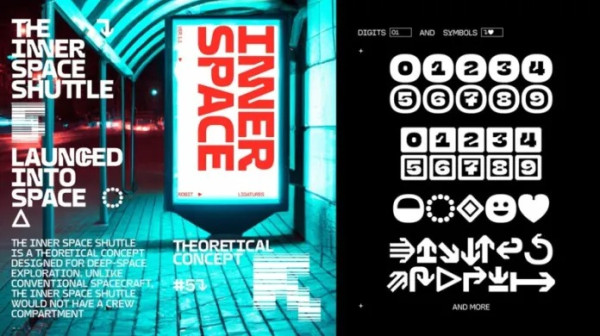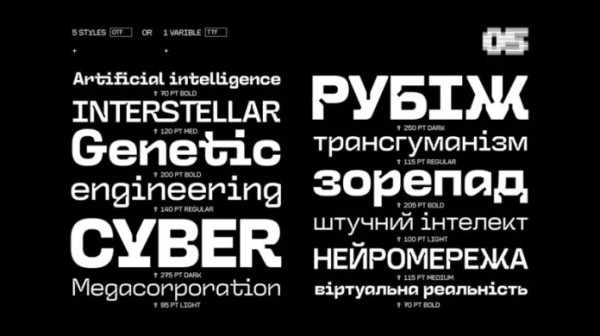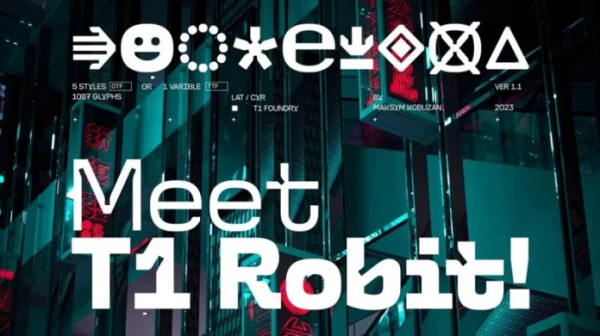
T1 Robit Font
T1 Robit Font is a modern sans display font created by Maksym Kobuzan with huge ink traps and humanistic shapes. Drawing inspiration from sci-fi visual culture, futurism, and industrial design, ROBIT consists of 5 styles with variable font technology, providing users with plenty of opportunities for experimentation. Locked in its open-type features you can find stylistic alternates to play around as well as a very, very large number of unusual ligatures, arrows, icons, and more.